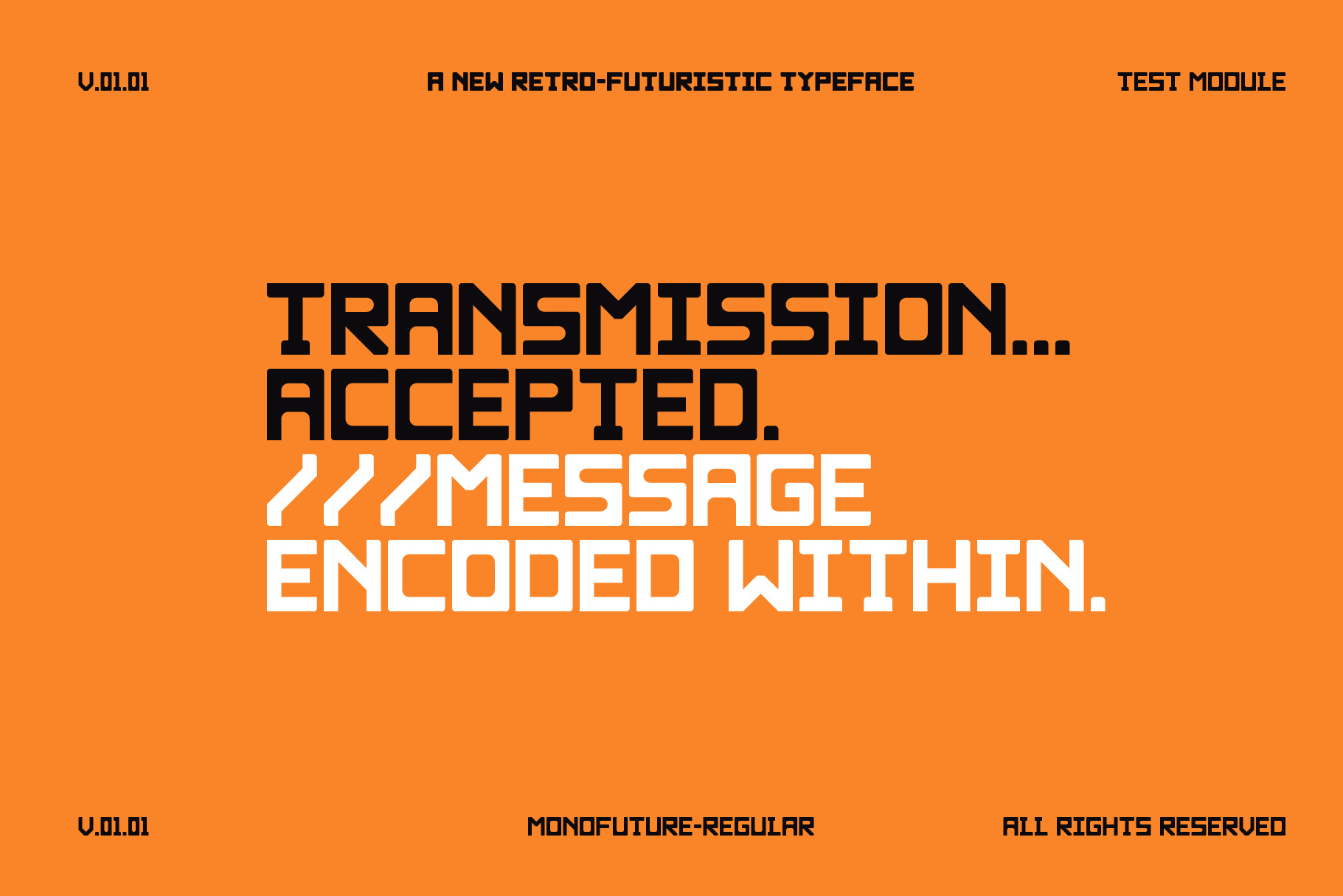
Monofuture Typeface
Testing...MESSAGE INCOMING:
Monofuture is a new retro-futuristic, geometric sans serif typeface. This typeface has been diligently crafted with precise measurements so that it displays boldly and beautifully on your favorite digital and print mediums. This typeface is equipped with 2 styles, all you'll ever need. Bold and Regular.
[END MESSAGE.]